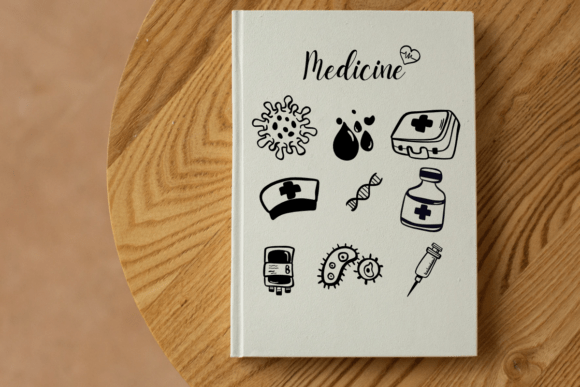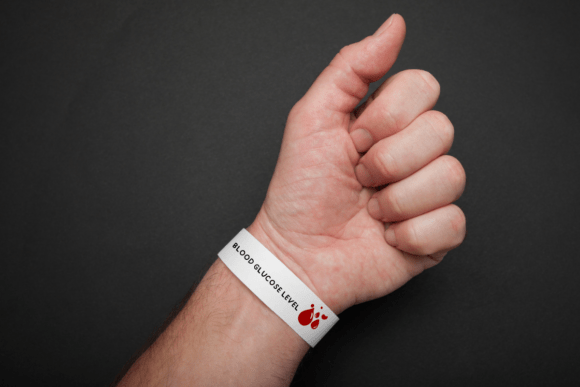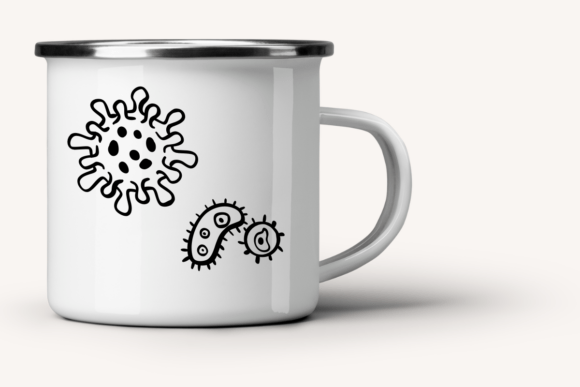
Introduction to Medicine Doodle Font
Medicine doodle is a dingbats font.
You can use it for taking notes, writing a diary, or making greeting cards However, you can still use it for other designs, such as banners, content, mugs, cards, shirts, stationery, social media posts, and more.
Key Features of Medicine Doodle Font
Why Choose Medicine Doodle Font?